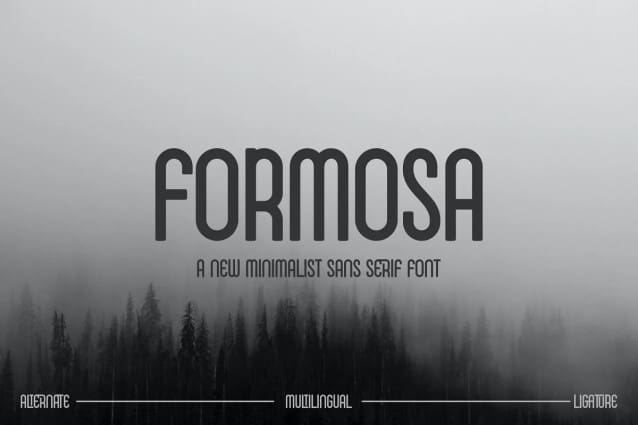
Formosa Font
Formosa Font is a modern and simple font, best used as a display for headings, logos, branding, magazines, product packaging and invitations.